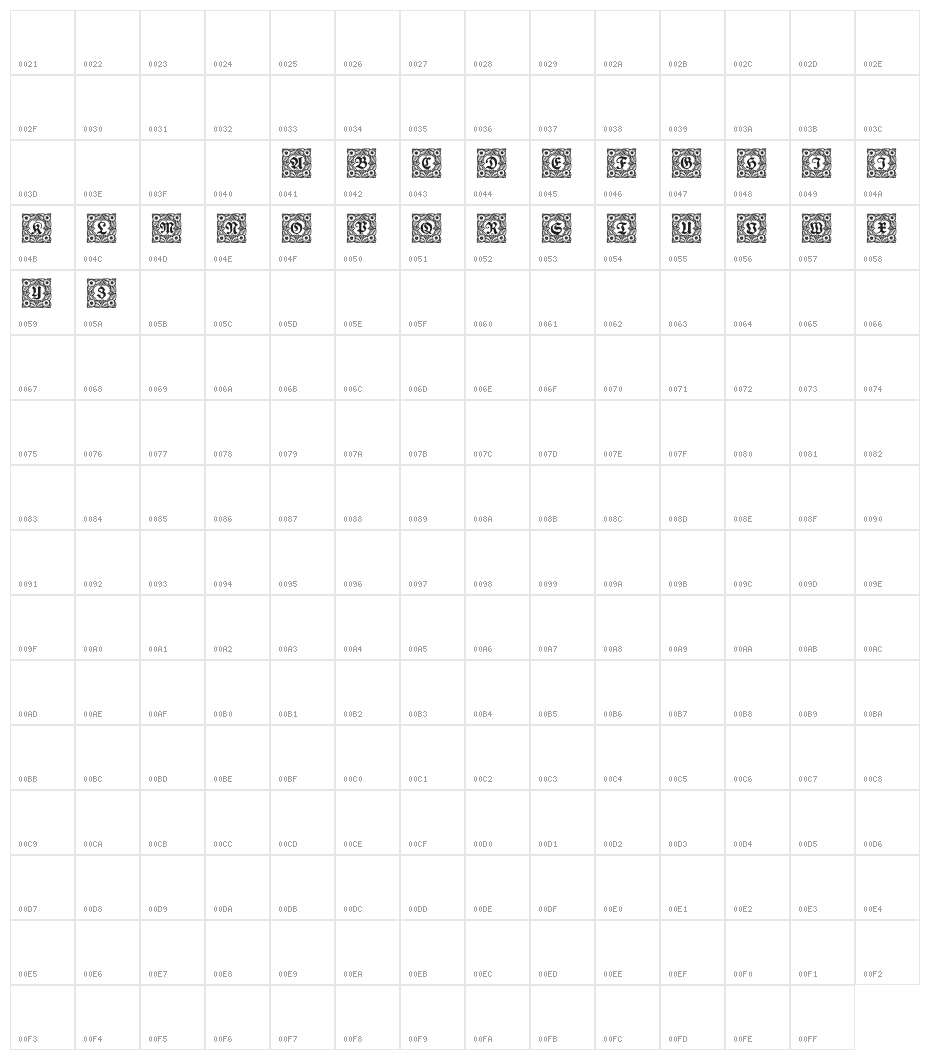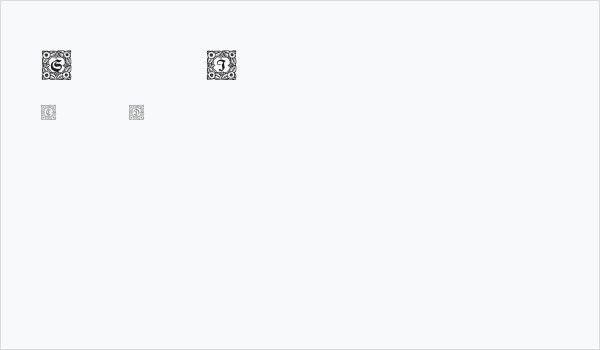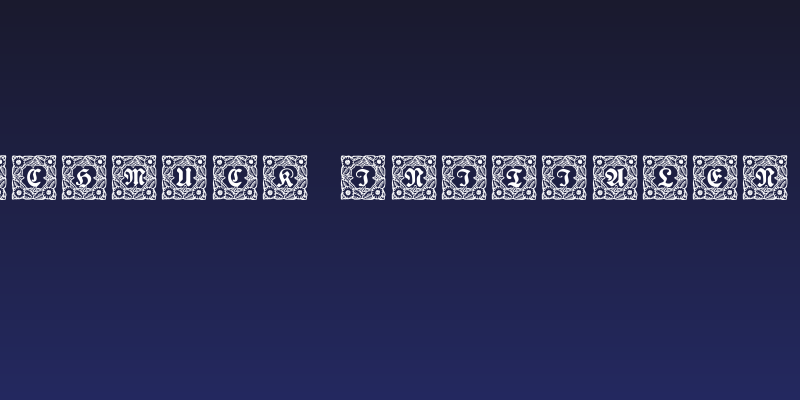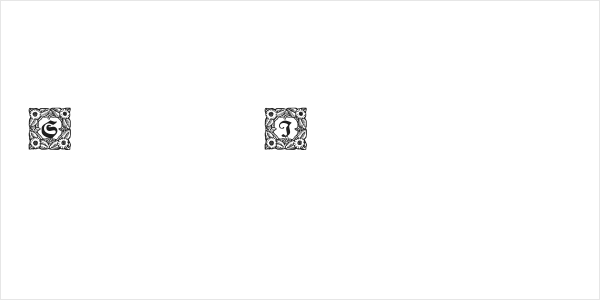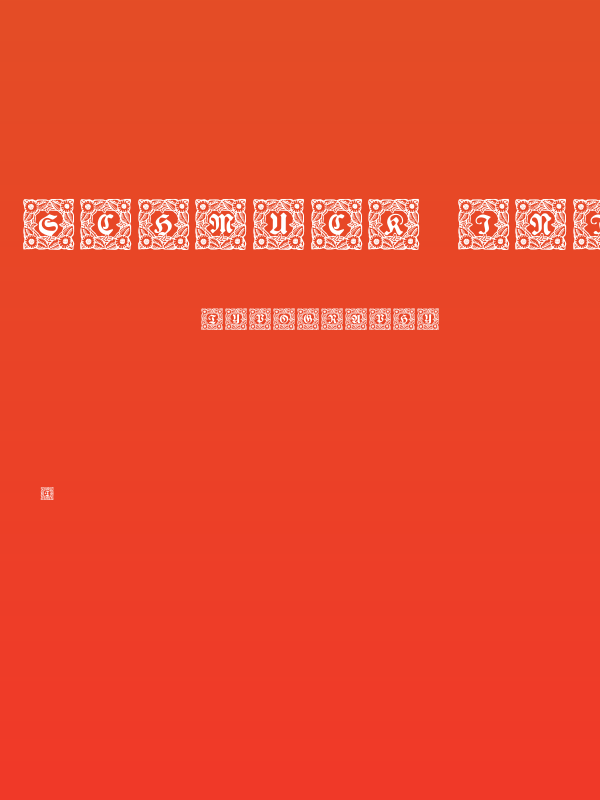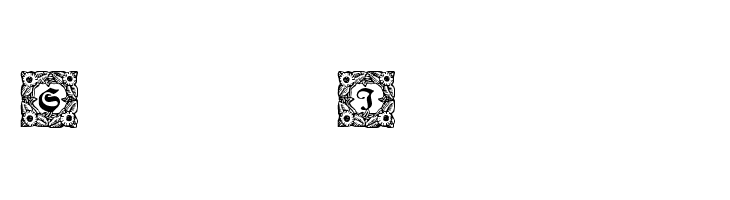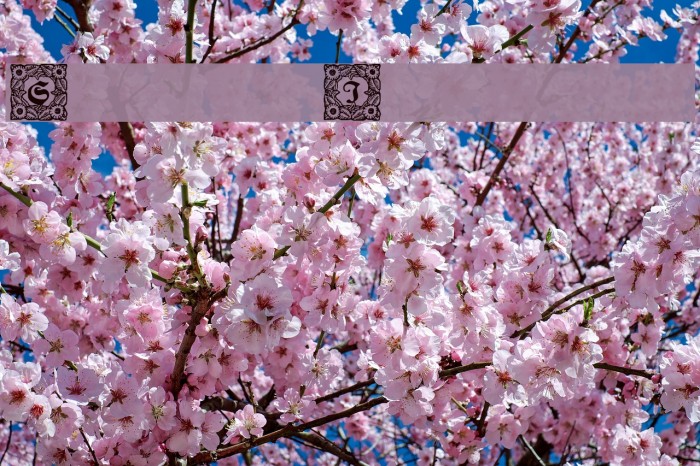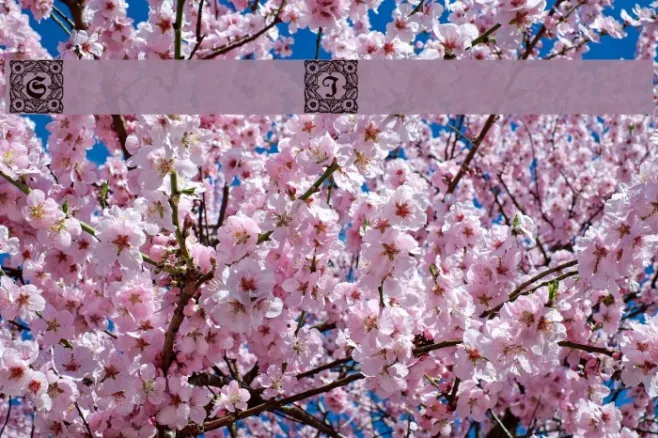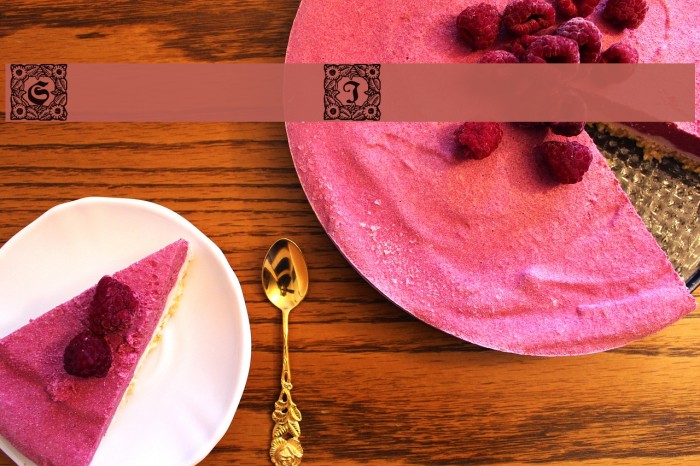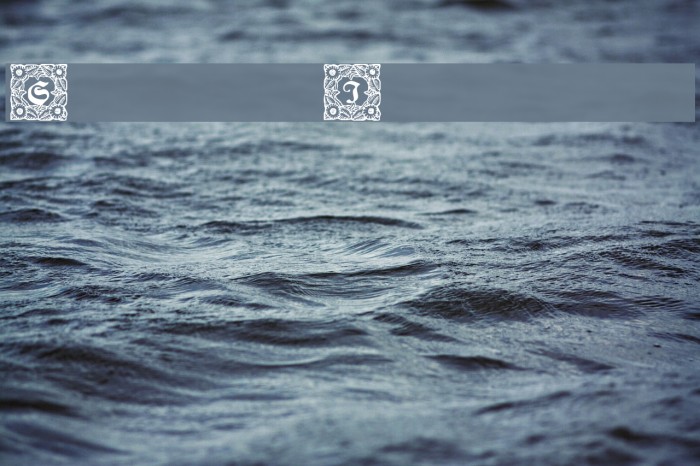
Schmuck-Initialen 1 Font
Schmuck-Initialen 1 Description
This font features ornate, decorative initials enclosed within intricate floral borders. Each letter is designed with a high level of detail, showcasing a blend of Gothic and Baroque influences. The characters are bold and stand out prominently against the decorative backgrounds, making them ideal for use in projects that require a touch of elegance and historical flair. The intricate designs suggest a handcrafted quality, reminiscent of illuminated manuscripts. This style is particularly suited for decorative purposes where the visual impact is paramount.
| Overall Style | Vintage |
| Use Case | Logos, Headlines, Decorative elements |
| Proposed Projects | Ideal for wedding invitations, luxury branding, historical book covers, and decorative certificates. |